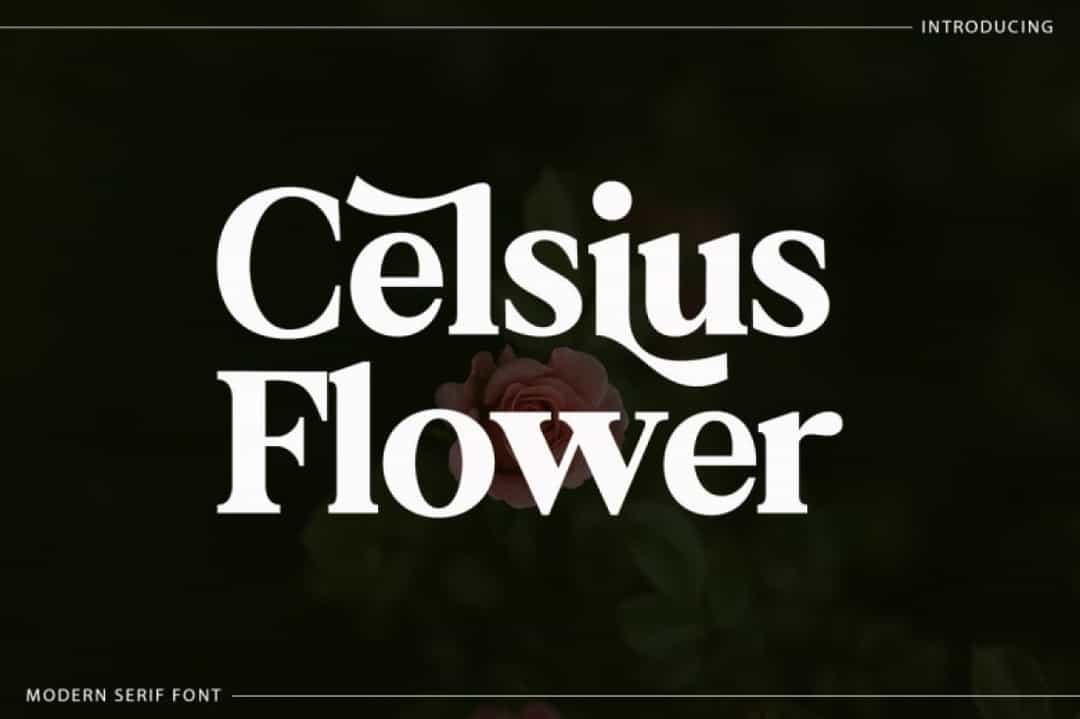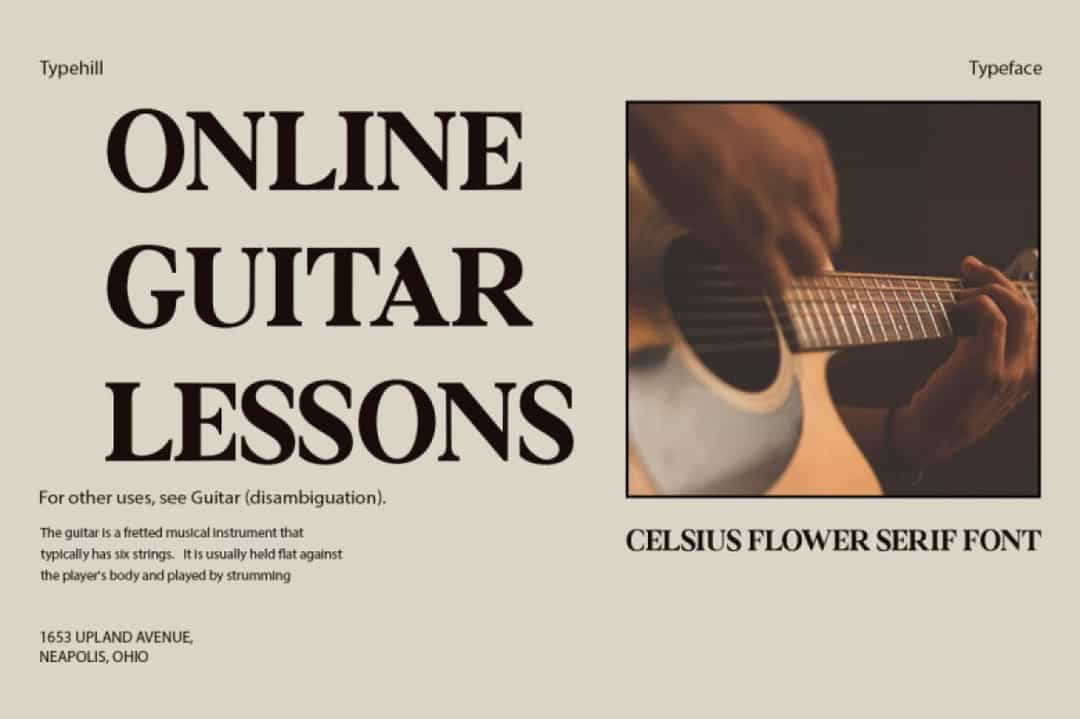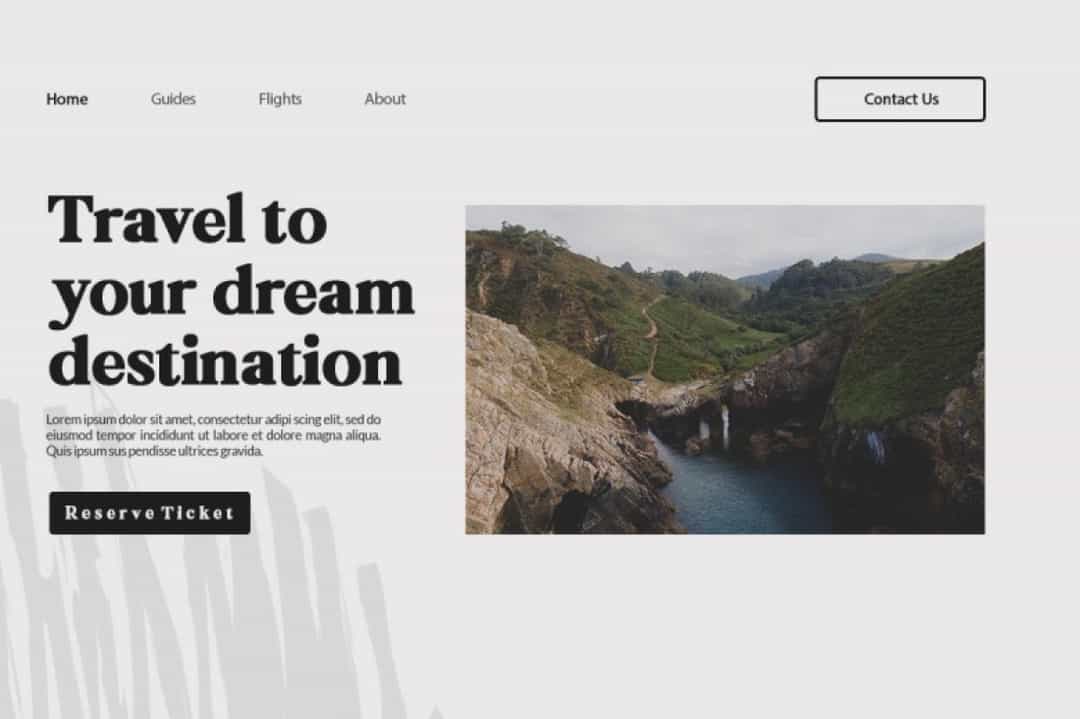
Celsius Flower is an attractive modern serif typeface with soft lines. This modern typeface stands out as being stylish yet simple to comprehend; perfect for sensual women and feminine elegance alike. Additionally, this timeless classic can fit easily in many formal environments.